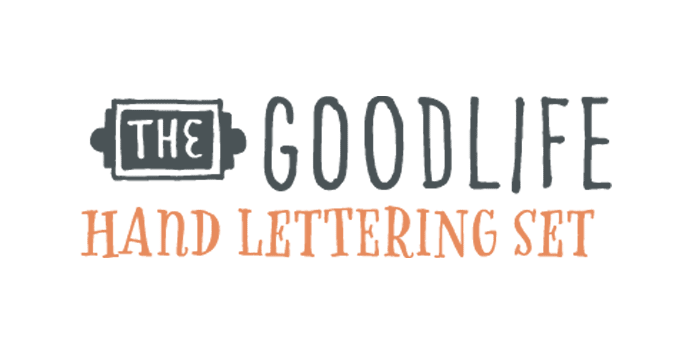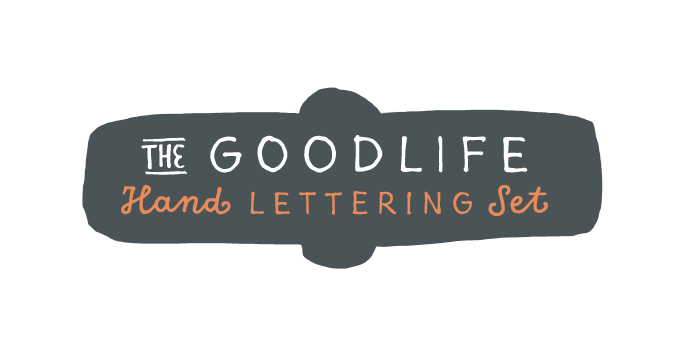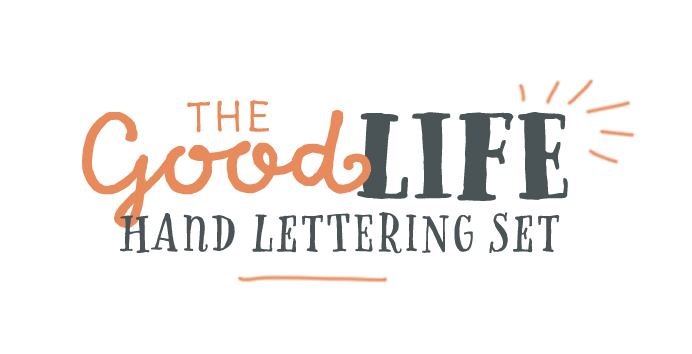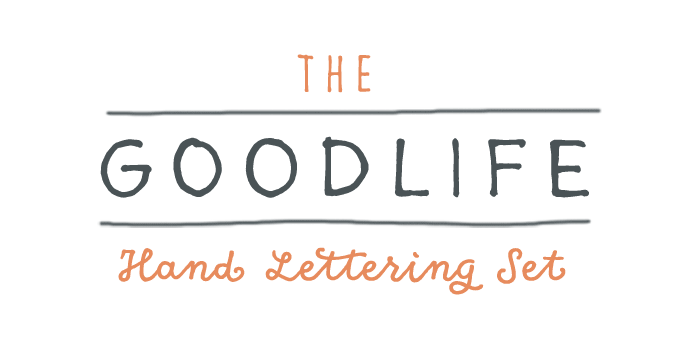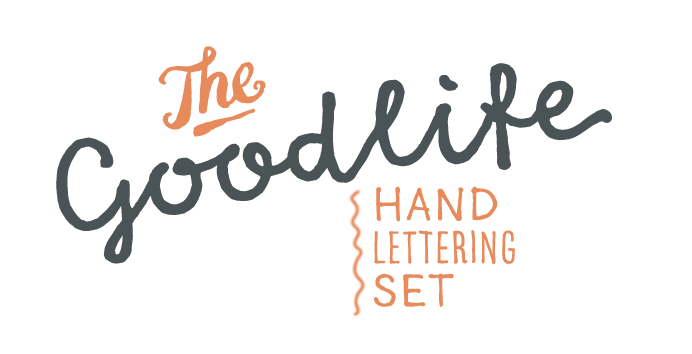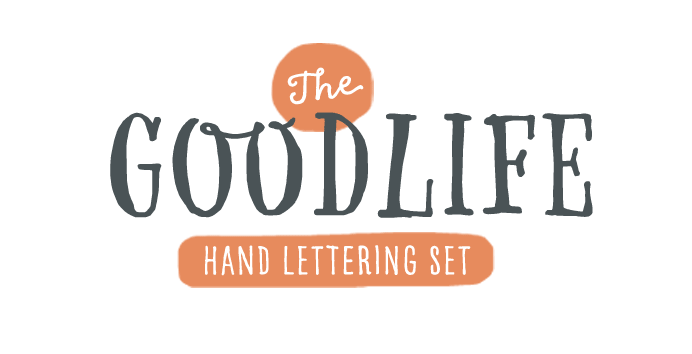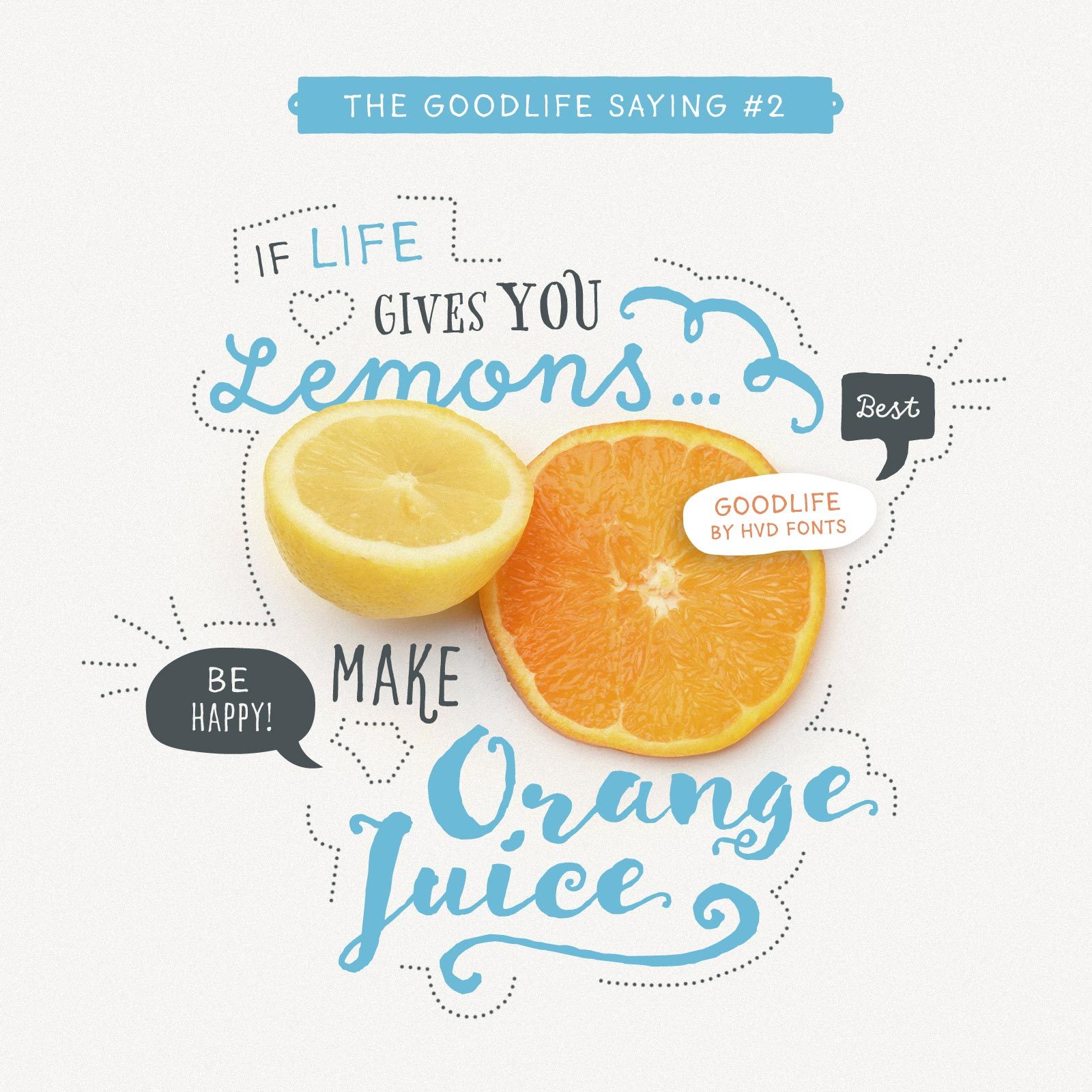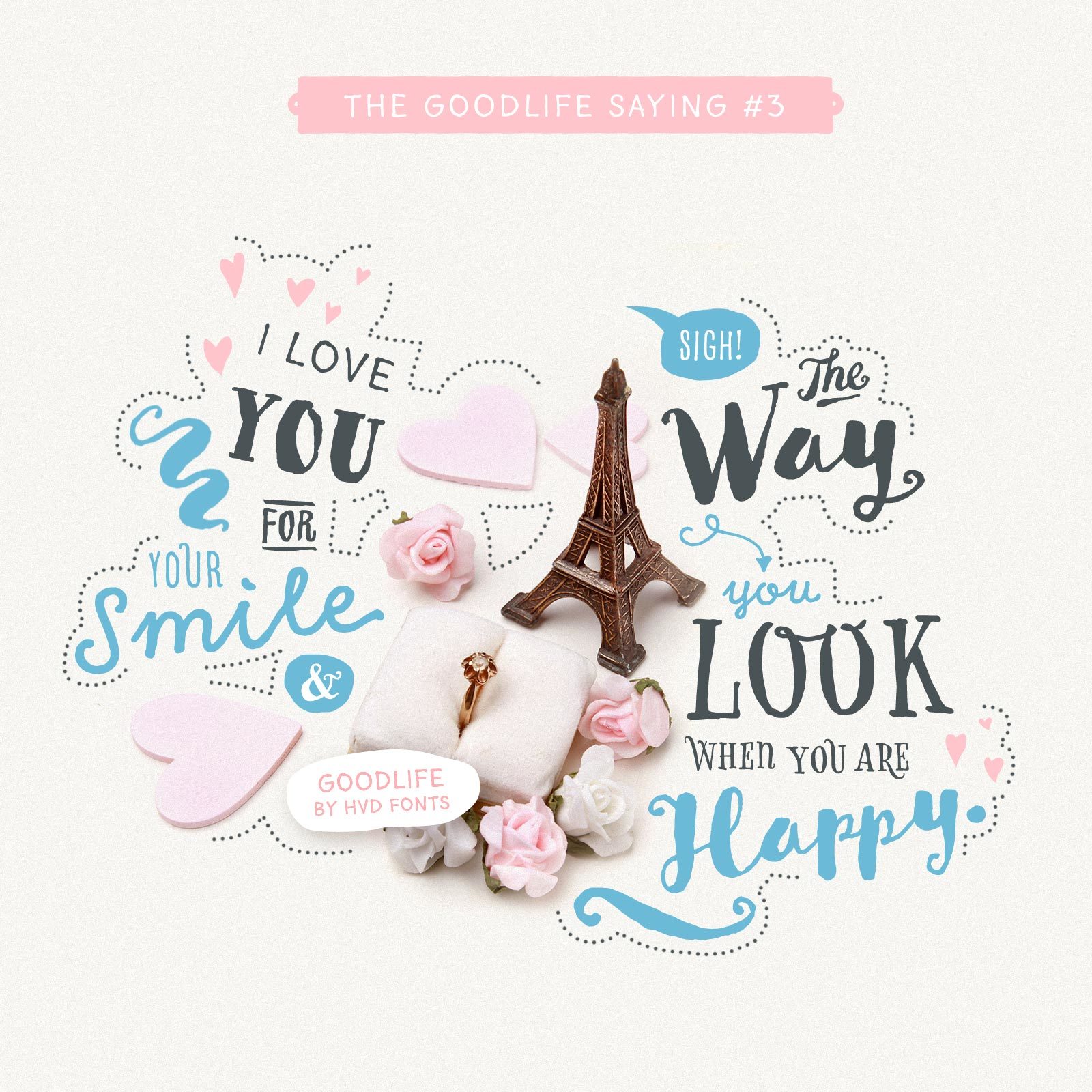
Goodlife
Explore the Goodlife handlettering font collection: Brush, Serif, Sans & Script in one set.
The Goodlife type family is a lovely handlettering collection designed by Hannes von Döhren with techincal support of Christoph Koeberlin. It contains six different hand drawn fonts with loads of features and a set of extras such as catchwords, arrows, ornaments & more. With this set and a little bit of love and care it is possible to create beautiful “handmade” graphics. Equipped with automatically exchanging alternates, ligatures, end forms, swash letters and some other features, Goodlife is optimized to feel not just like a font but like true handletterings.
Real handlettering can never be reached with a font – but Goodlife comes close.
Font Design vs. True Lettering
A handwriting font always tries to imitate real hand writing or lettering. The problem is, that if you use a font instead of a handwritten piece it is nearly impossible to achieve this organic feel. For example several letters will be doubled and connections between some certain letters have is own rules. The collaboration between Hannes von Döhren as a type designer focusing on the design and Christoph Koeberlin, a type engineer specialized in font technology, gave a lot of new possibilities to the project. Combining these skills they tried to make a hand-made font family which does not have the disadvantages of standard script font family.
We knew that it will never be possible to reach the level of a real hand lettering where an artist invests long time in every single word. But if it comes to big campaigns, a lot of different uses inside a campaign, or even a campaign where more than one agency has to work in several countries, a font family clearly has it advantages. So we gave our best using all technical possibilities to honor the advantages of real hand lettering. Goodlife is full of features, lettersets, special forms and intelligent font technic. Here is an example how Goodlife Brush behaves in a layout applications like indesign. The letters are automatically exchanged to avoid repetition. You can also choose alternates like ligatures manually.
With the whole font set you can achieve a great variety, still coming from one hand.
A font of today’s needs has to include more than just the alphabet and some punctuation. Besides a big number of accented letters, making sure that the typeface has a good language support, a font should include several features for excellent typographic work joining forces with the layout applications of the time and of course the user. Here is a selection of what this font family has to offer under the hood.
Sweet Waffles
Ligatures
In a font every letter should work with every other letter – when it comes to script typefaces there are different rules because the connections between the letters have to be observed. Some letters are ending at the top others at the bottom. To get this fixed and always come up with a fluid solution Goodlife Brush contains a ton of ligatures making sure that every word looks nearly like a hand lettering.
Ice Cream Sauce
Alternates
Each letter of Goodlife Serif has one or several alternate letters to avoid repitition. A special programmed logarhithm exchanges letters while writing texts to make sure that letters differentiate and the hand written feeling won't get lost.
Next Chaos Theory
Alternates
Goodlife Sans Condensed also has a special stylistic alternates feature. When it is turned on all rounded letters become circles, this results in a nice visual effect.
Ornaments
Additionally to the letters this font family contains a big set of ornaments, borders, catchwords and symbols fitting to the characteristics of the typeface. The user can combine text and ornament elements keeping a homogenous design language. The full set of extras is shown in the character set overview below.